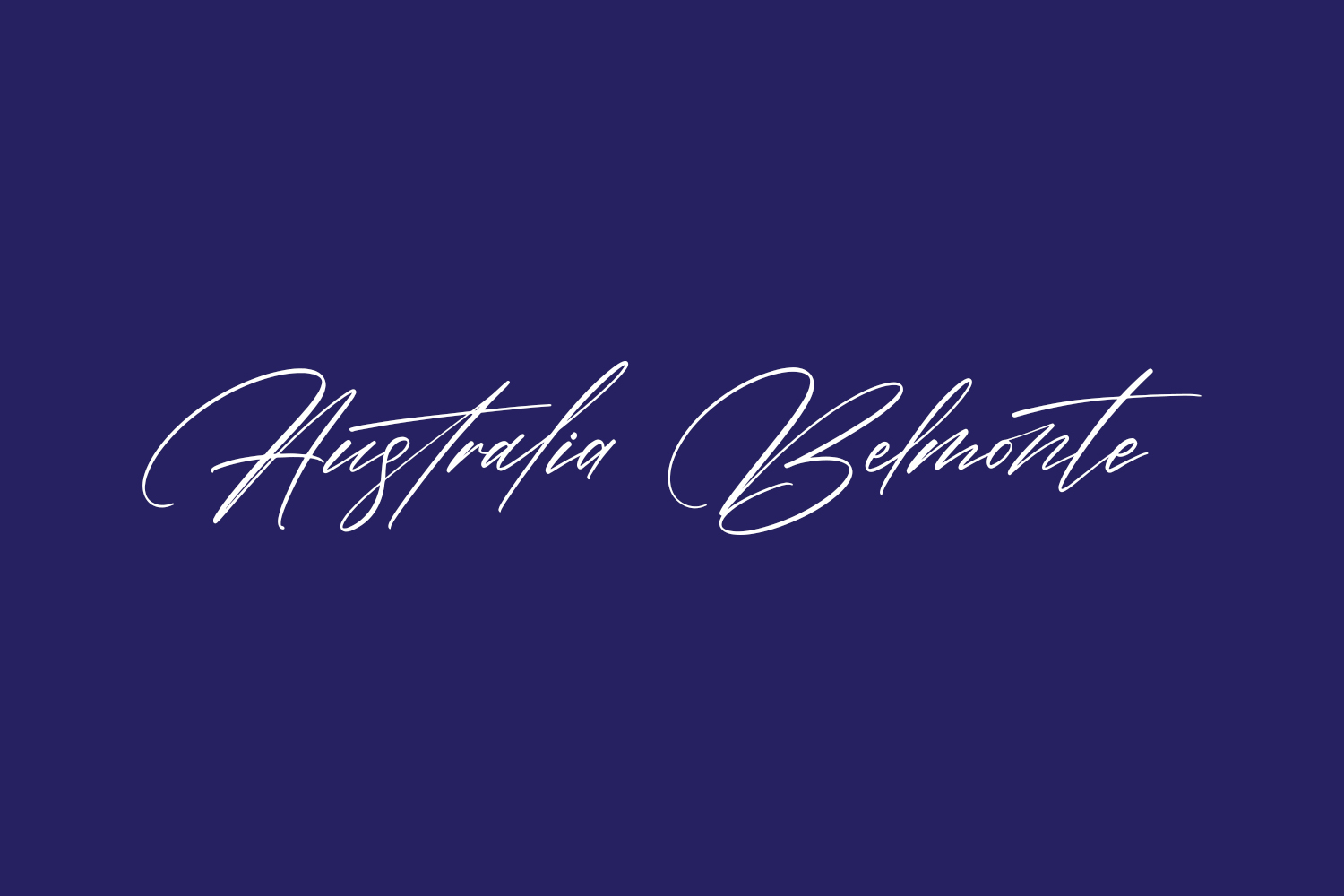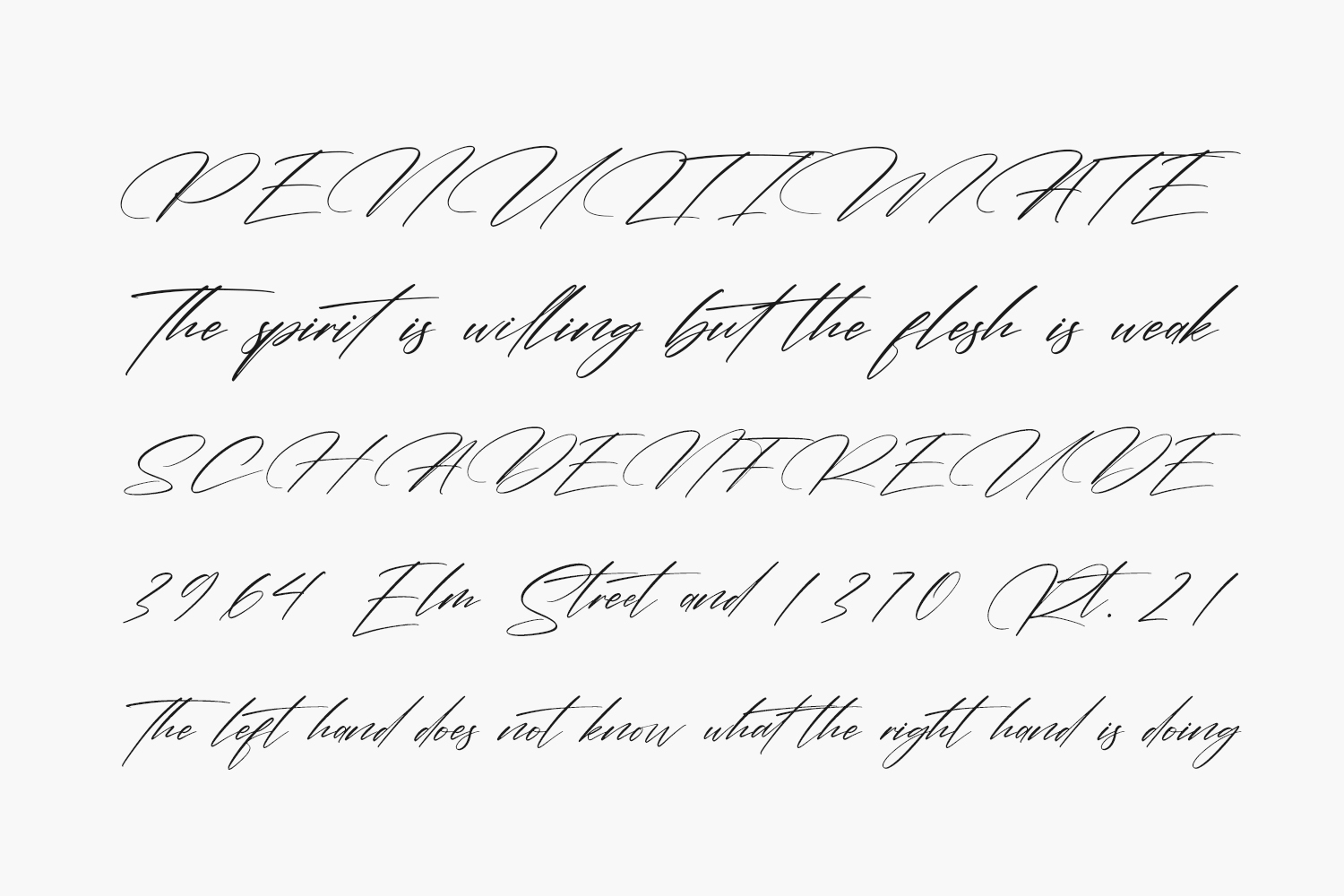
Australia Belmonte Free Font is a lovely and timeless handwritten font. It is the best choice for creating eye catching logos, branding, and quotes. Australia Belmonte Free Font was designed by Letterena Studios and is free for personal use only. Please purchase the full version for commercial use.